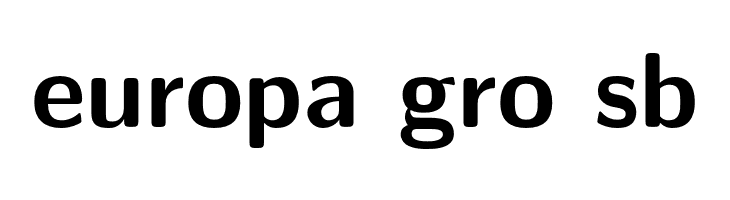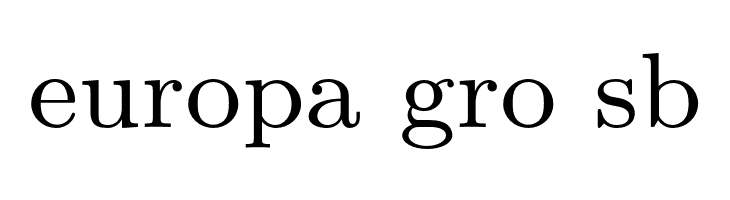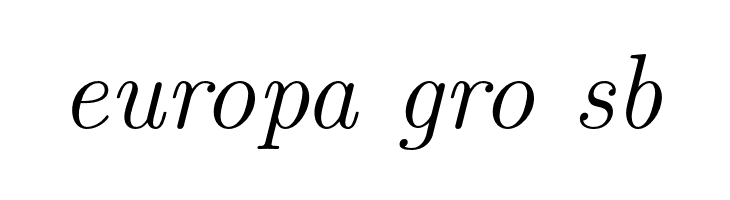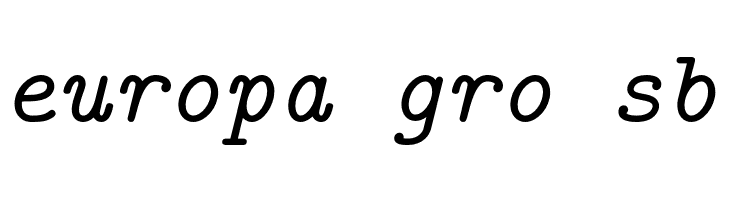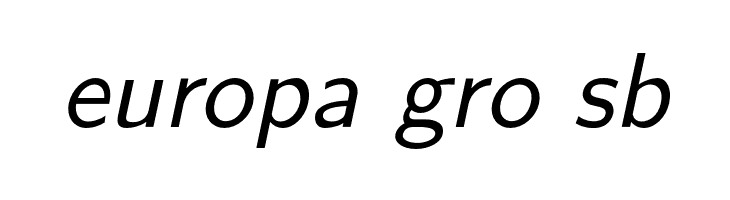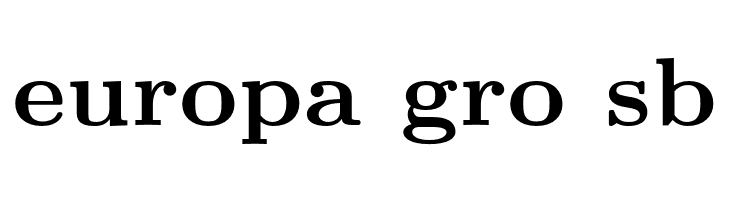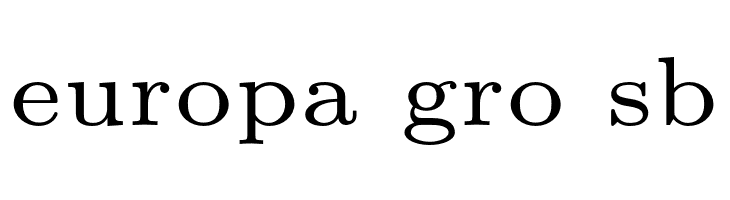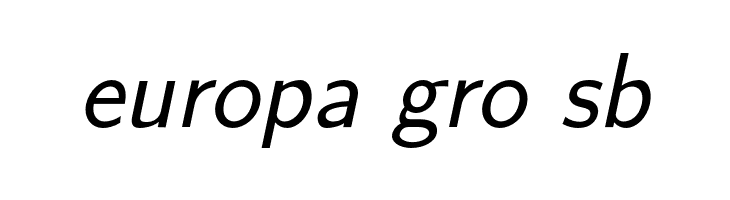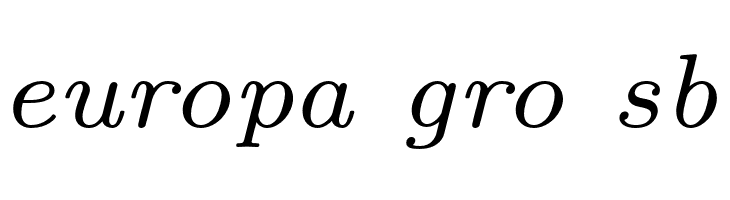
A bold, modern sans-serif font with clear, evenly spaced characters.
A classic serif font with elegant strokes and refined proportions.
A classic italic serif font with elegant curves and refined serifs.
A monospaced italic font with a classic typewriter feel and modern appeal.
A modern sans-serif font with an oblique style, offering clarity and dynamic appeal.
A bold, classic serif font with high contrast and pronounced serifs.
A modern, clean sans-serif font with excellent readability and balanced design.
A classic serif font with elegant strokes and refined details.
A modern, oblique sans-serif font with a clean and professional look.
An elegant serif italic font with smooth lines and moderate contrast.